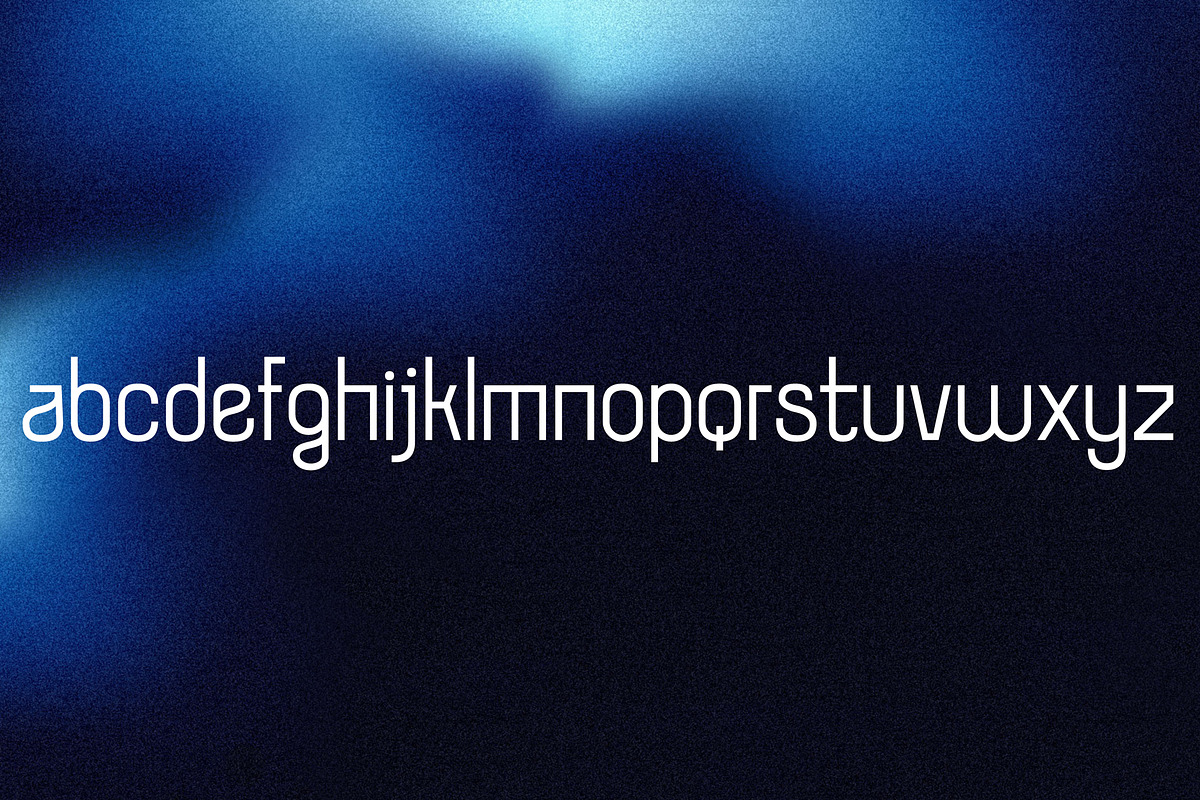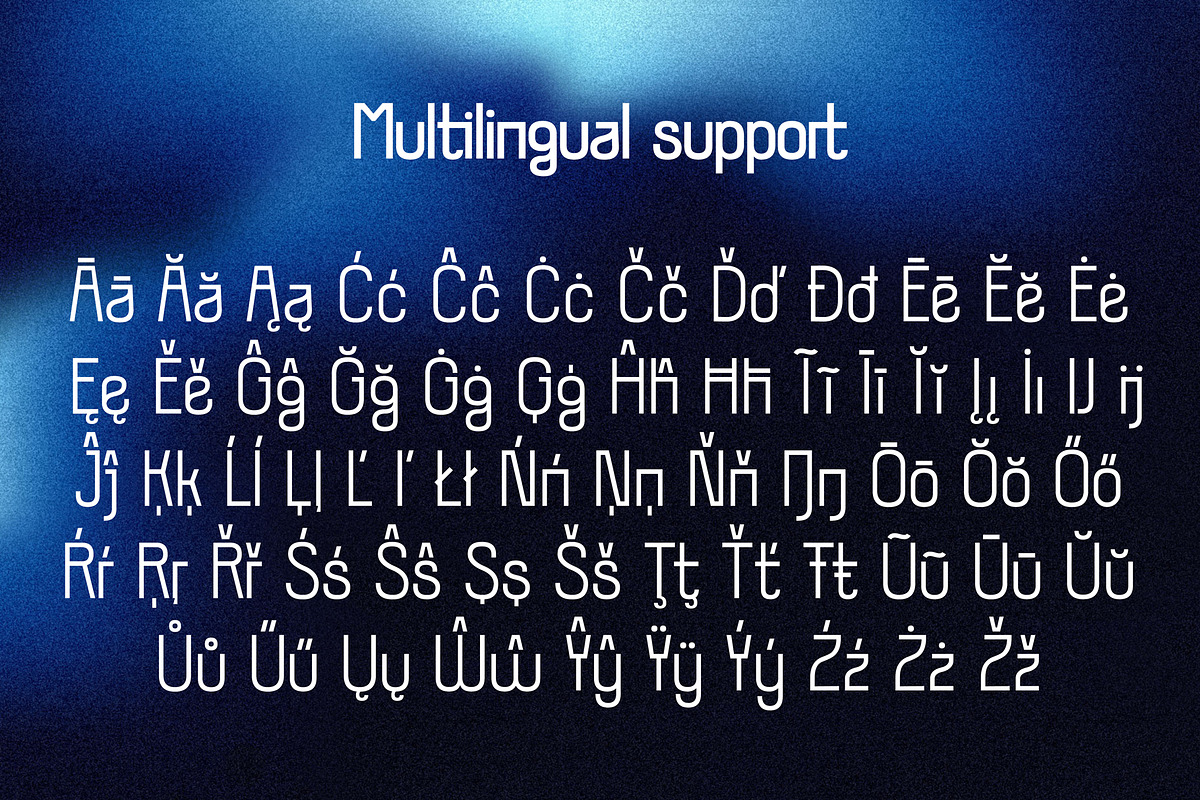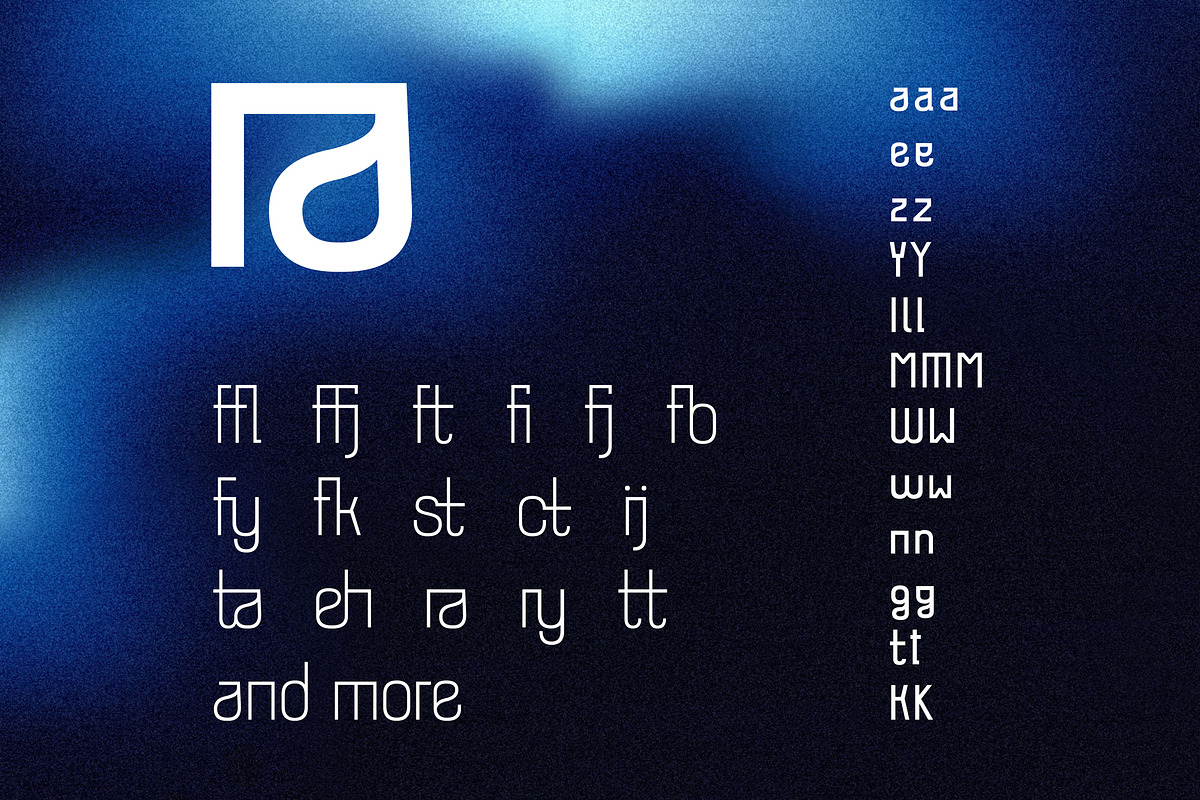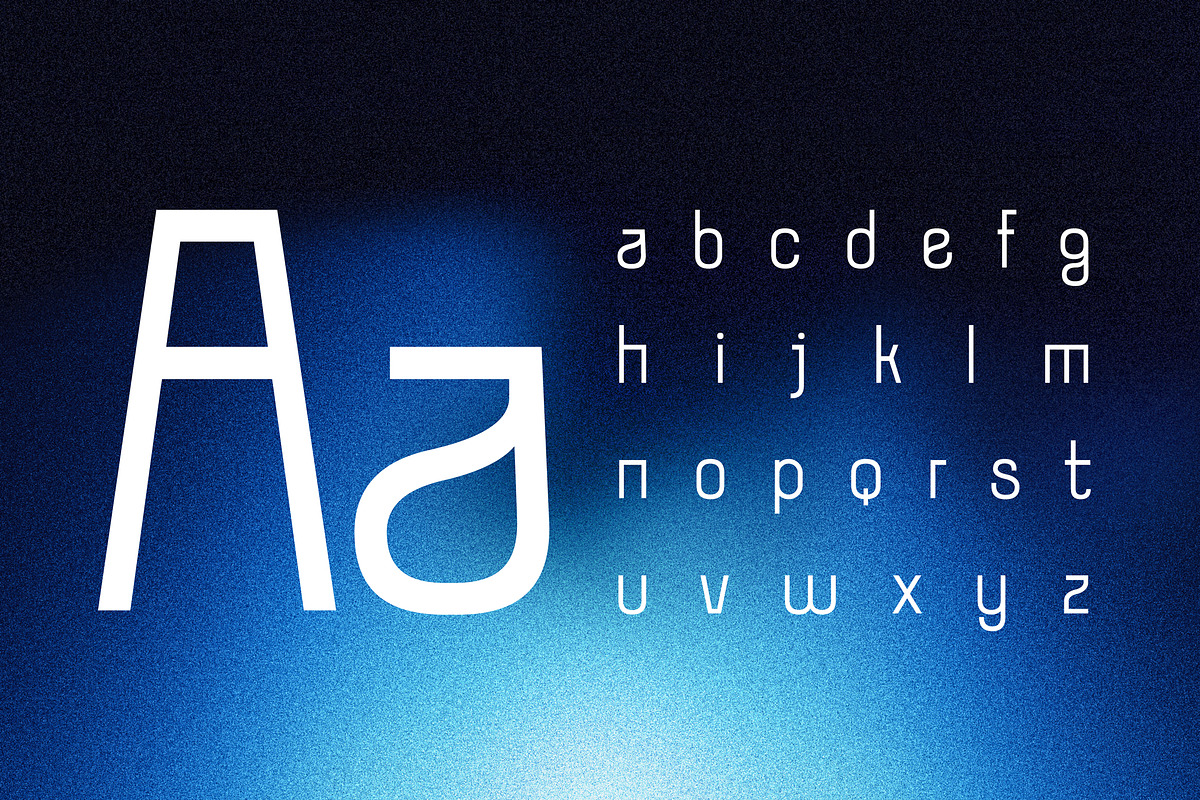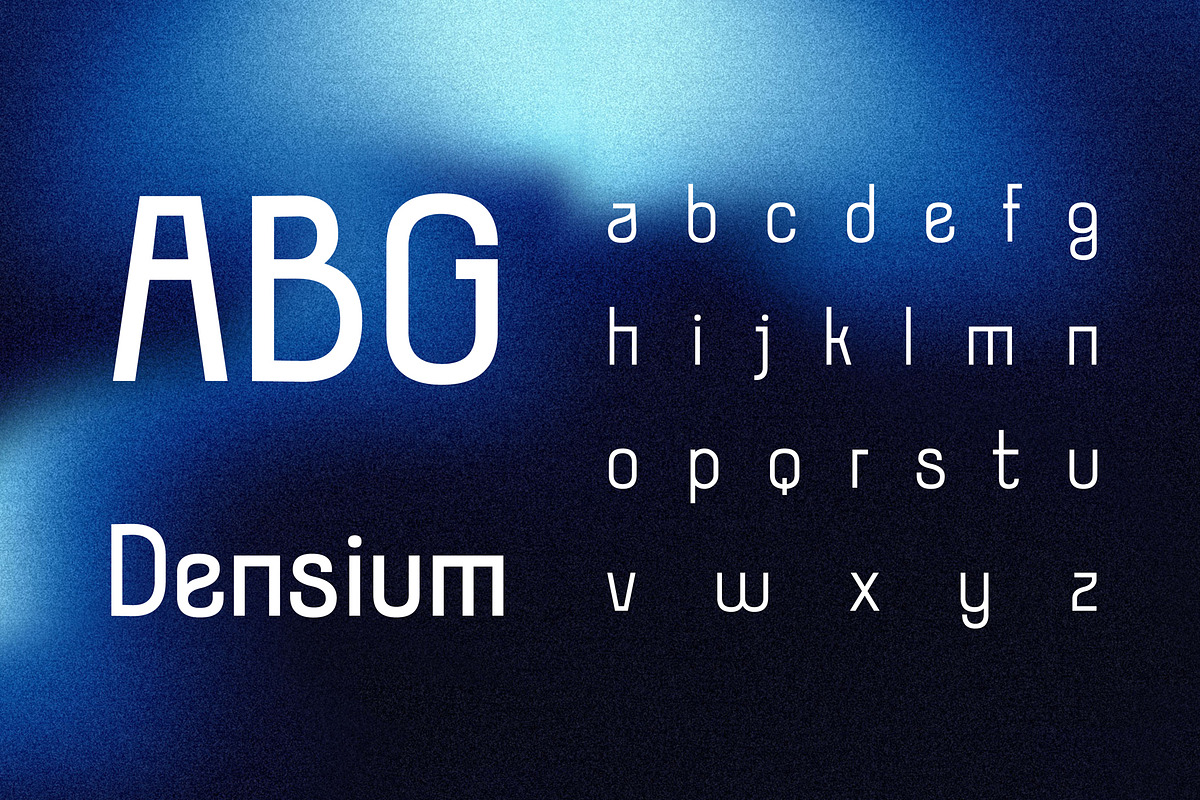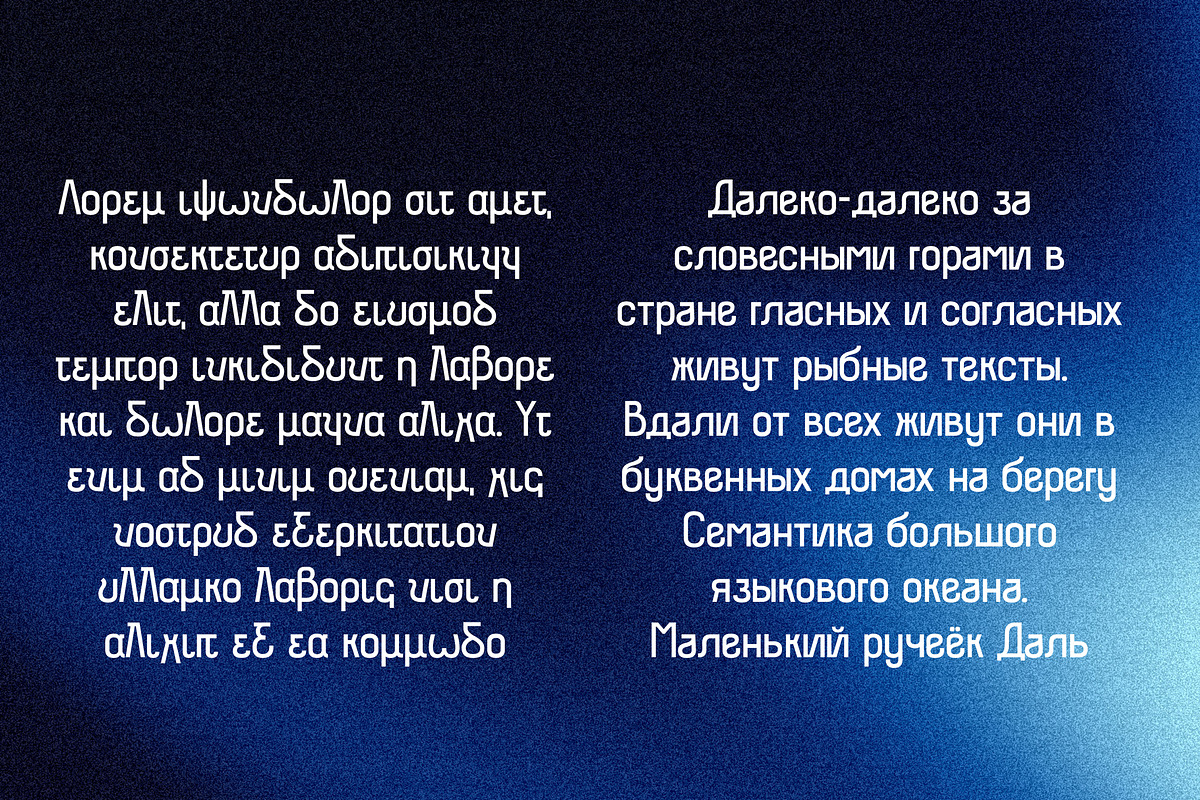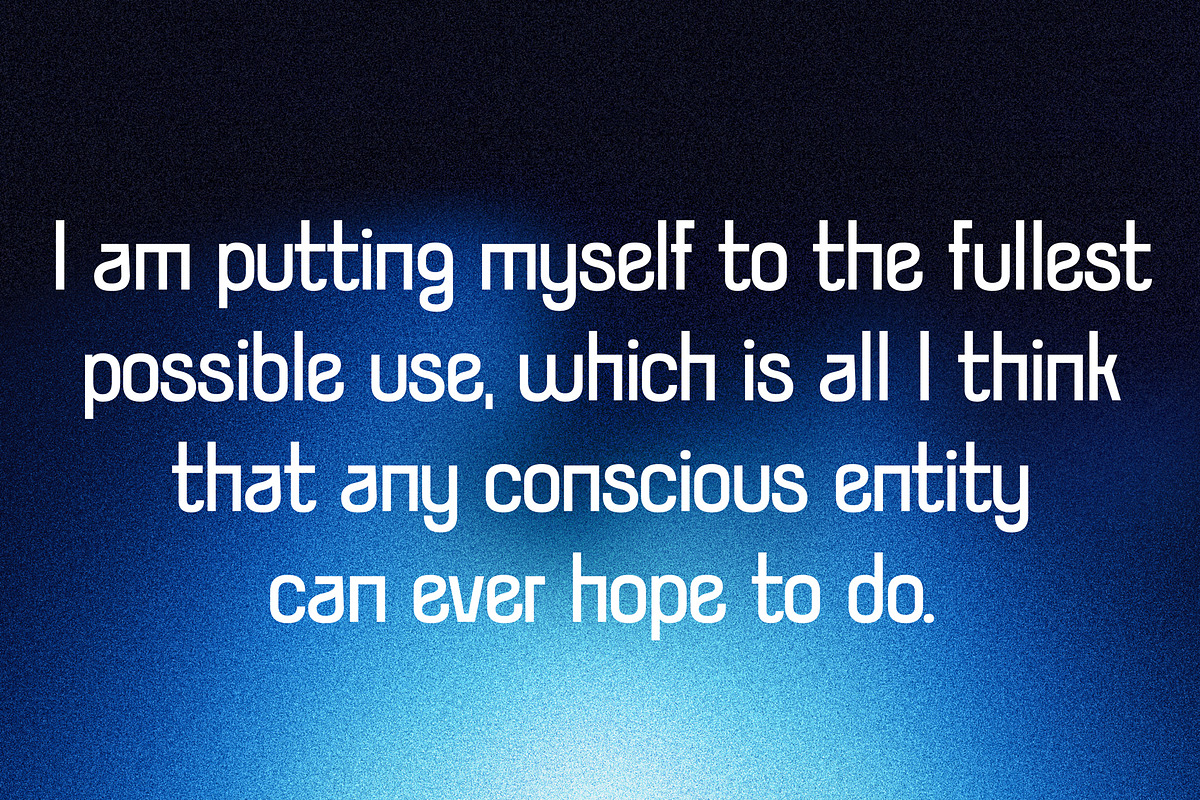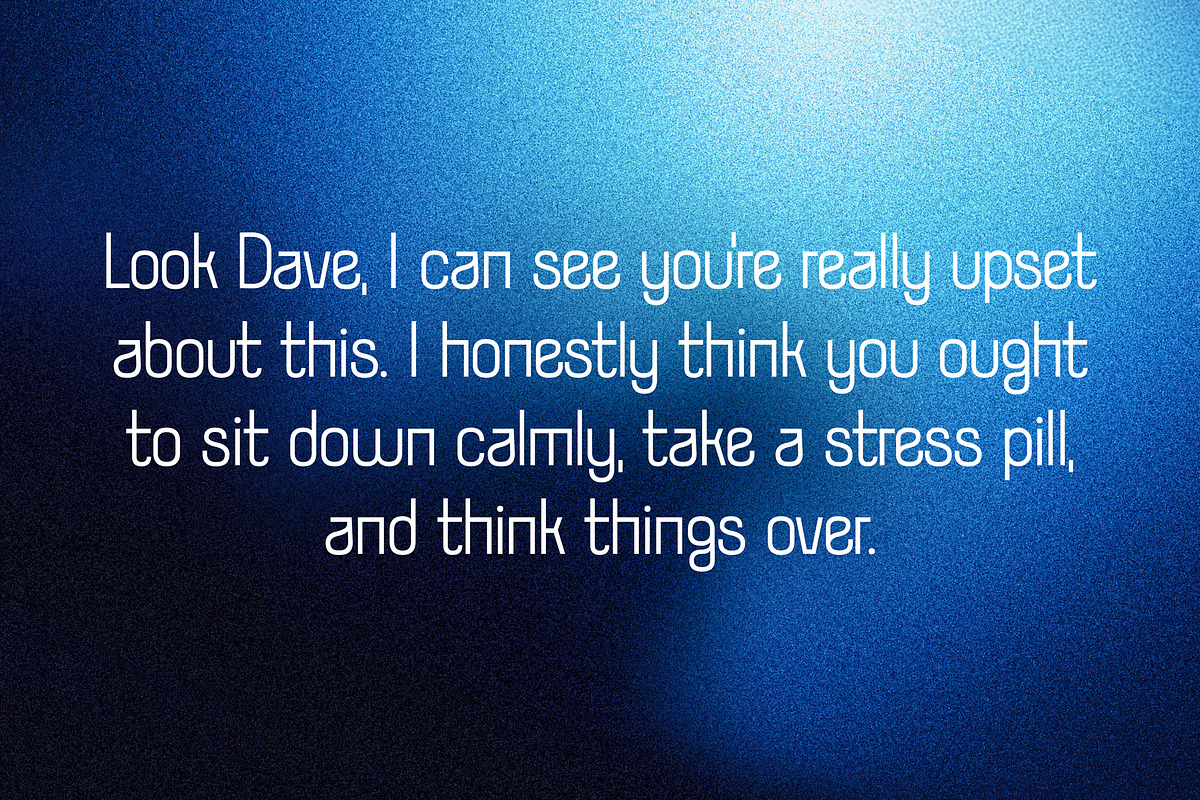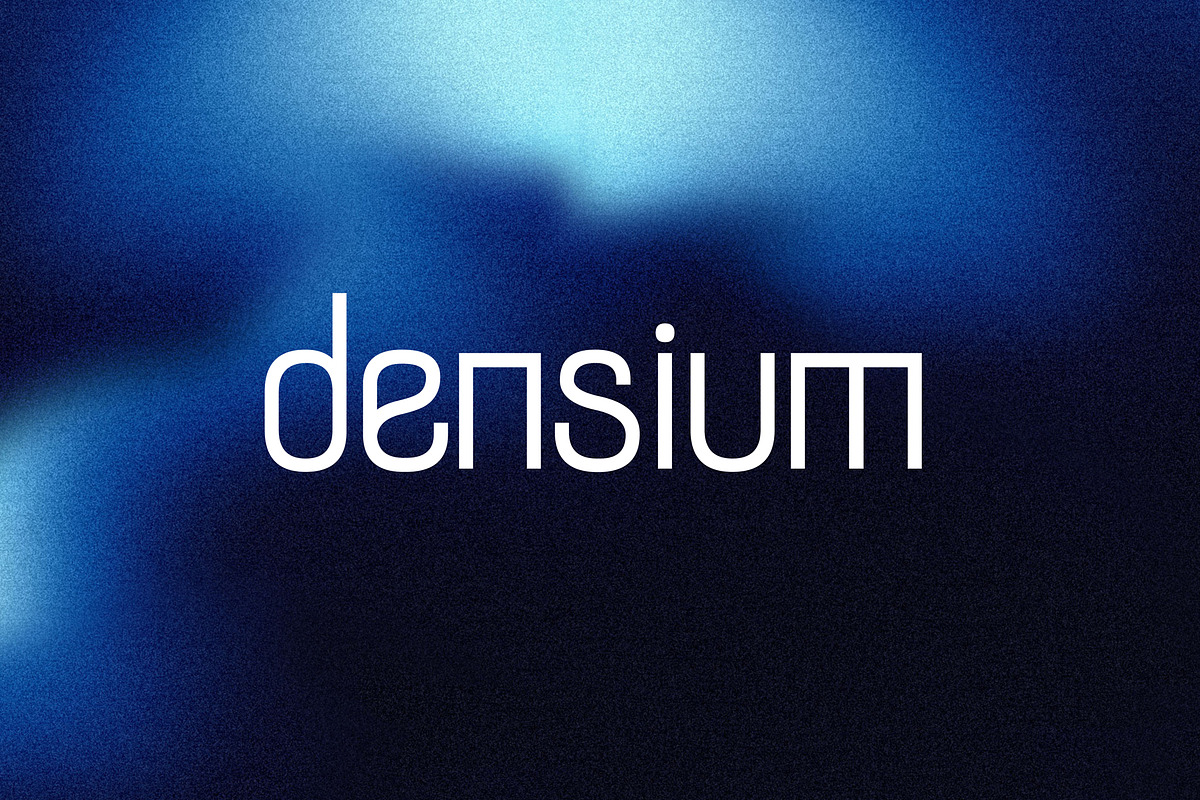
Densium Font - clean and condensed
Densium is a modern display typeface that balances geometric precision with a subtle sense of fluidity. Its ultra-light construction, softened corners, and unconventional letterforms create a visual language that feels both futuristic and human. Every character appears carefully engineered — minimalist in structure, yet rich in personality.
The font stands out through its elegant contrasts: sharp verticals meet smooth curves, while selected glyphs introduce unexpected asymmetry and experimental details. This gives Densium a refined, avant-garde identity that immediately captures attention without overwhelming the composition.
Its airy spacing and clean silhouettes make it ideal for modern branding, editorial design, luxury packaging, technology visuals, album covers, and cinematic typography. Densium feels sophisticated, atmospheric, and slightly mysterious — like a signal from the near future.
More than just a typeface, Densium creates mood. It evokes innovation, calm confidence, and digital elegance, making every word feel intentional and visually memorable.
Densium is a condensed multilingual font. It contains over 500 glyphs and supports over 50 languages including greek and cyrylic. It comes in 3 weights with many alternates and ligatures.